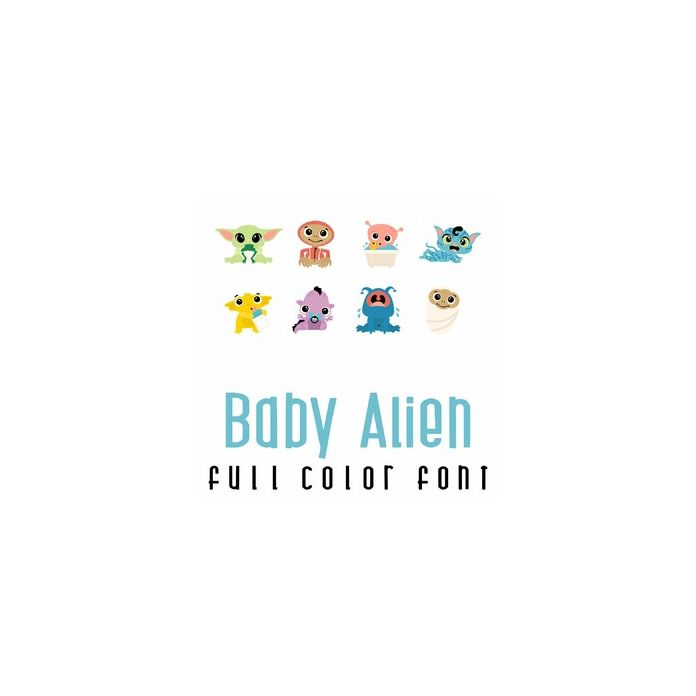
This fun full color doodlebat font features 26 baby aliens perfect for Halloween, parties, decor, crafts, card making, planner stickers, scrap book pages and more!